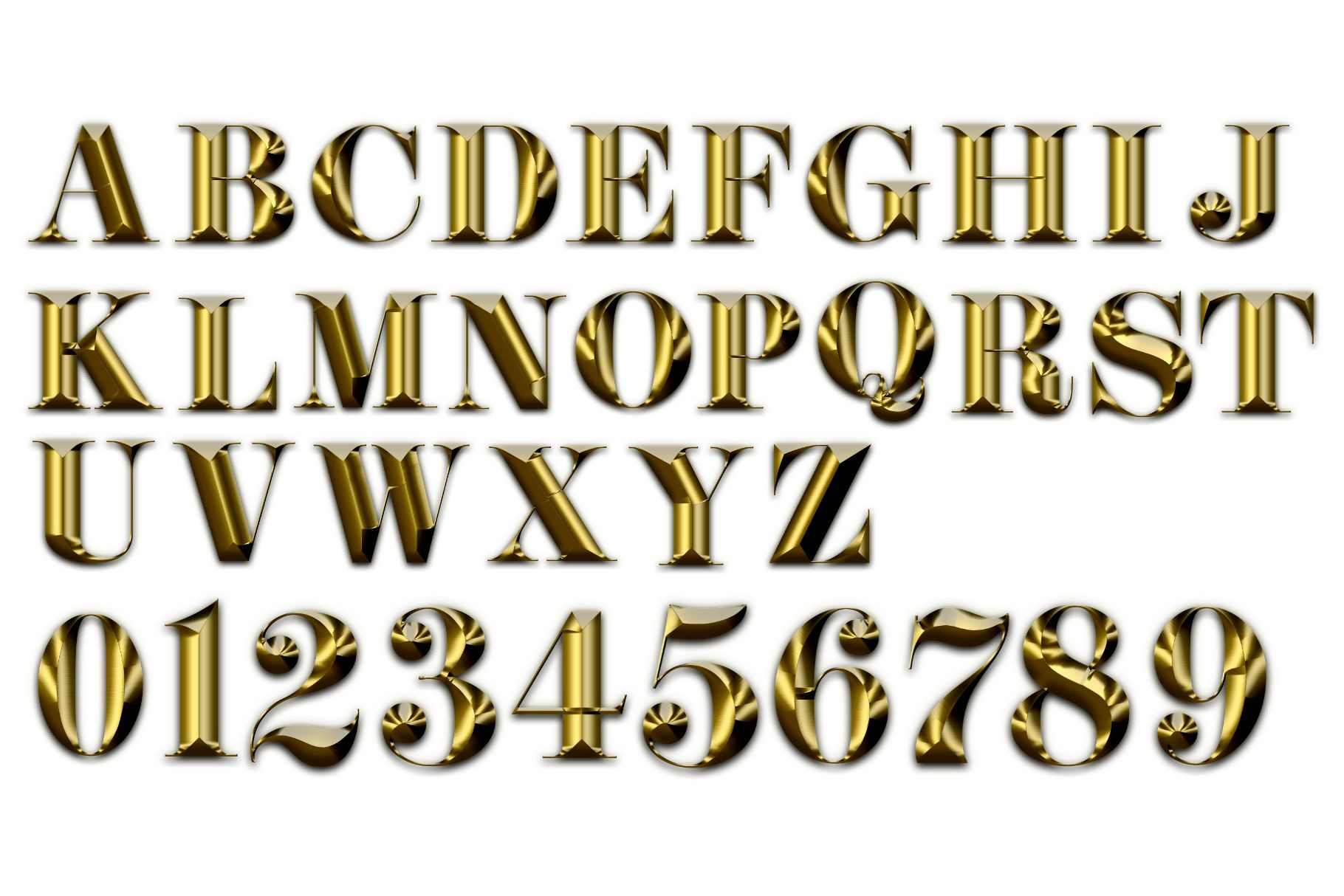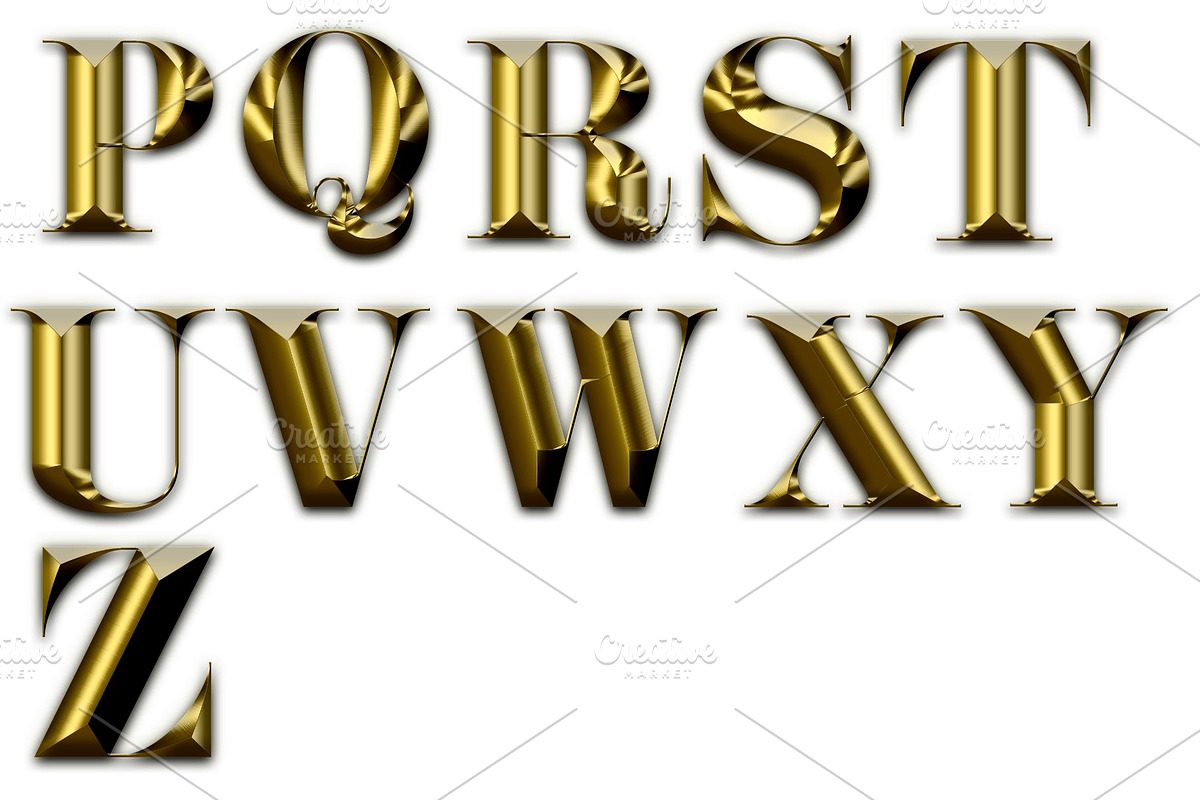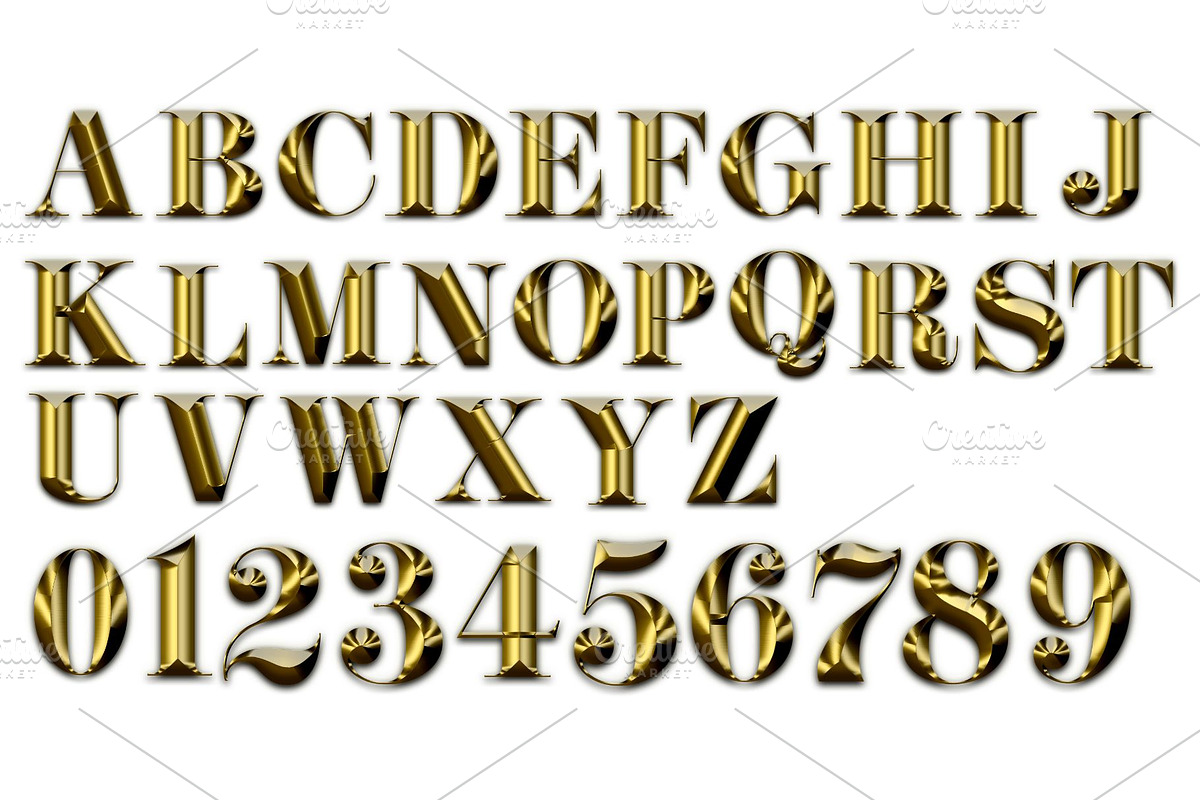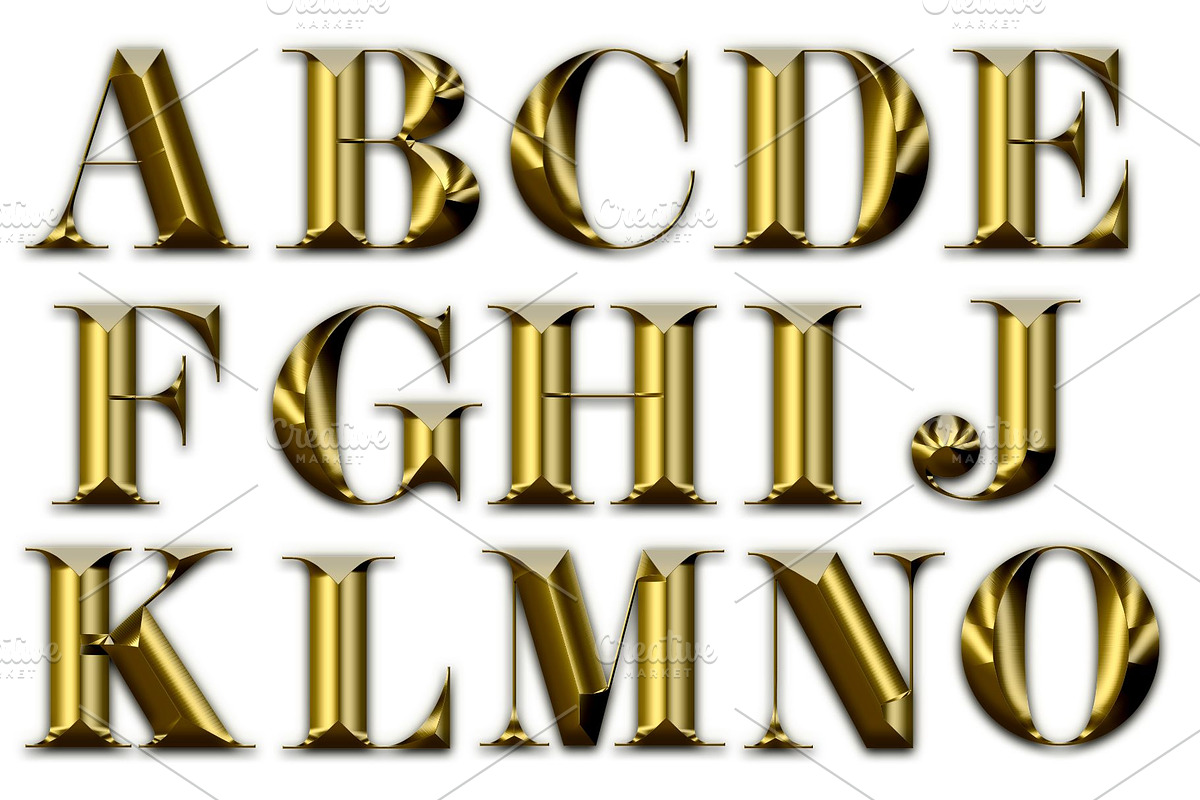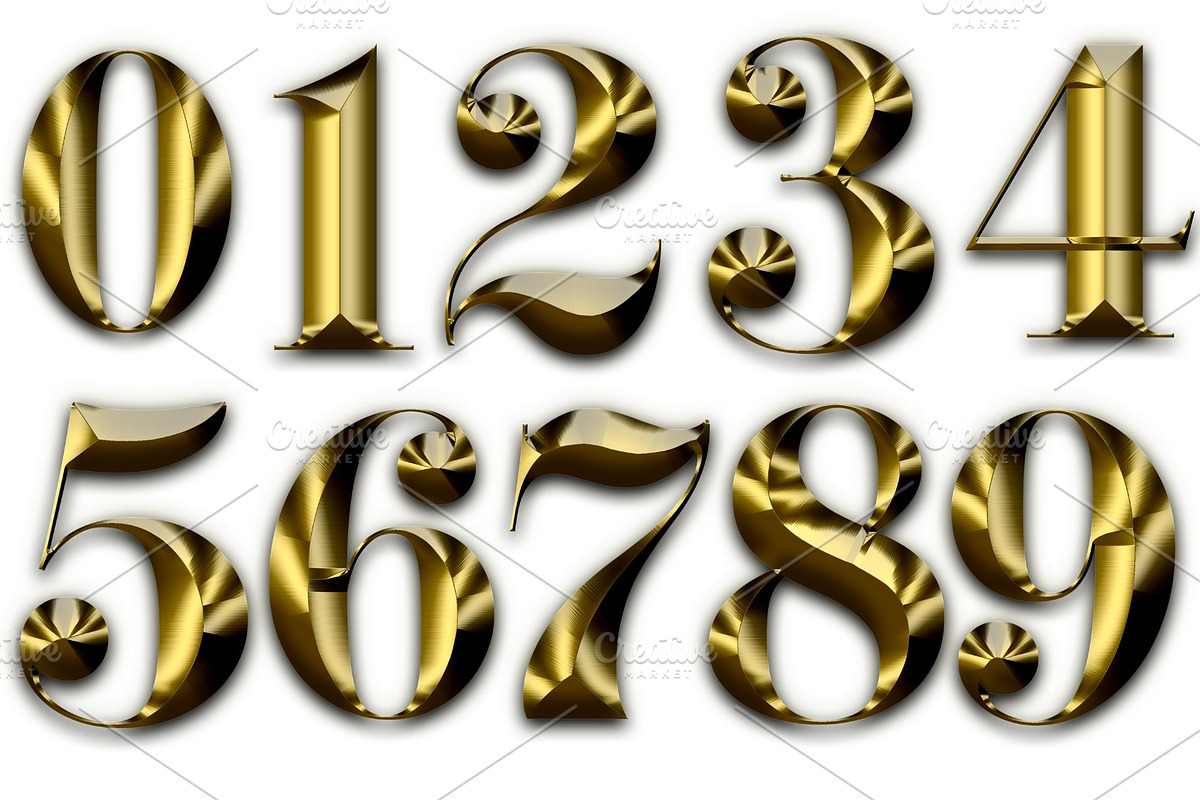
Golden Serif 3D Font Clipart
Golden Serif 3D Font Clipart - Shiny Gold Metallic Alphabet, Elegant Letters & Numbers, Transparent PNG, Luxury Text Effect, Classic Typography
Command attention with the opulent brilliance of this Golden Serif 3D Font Clipart bundle! This exquisite collection features a complete uppercase alphabet and numbers, all rendered with a stunning, highly reflective gold metallic finish and a classic serif typeface, giving them a rich three-dimensional presence. Each character gleams with the undeniable allure of real gold, offering an instant sense of luxury, prestige, and timeless elegance. Perfect for high-end branding, formal invitations, awards, or any project that demands sophisticated, grand, and memorable typography. The high-resolution PNG format ensures crisp detail and easy integration into your creative work, making your text shine with unparalleled golden splendor.
- Complete Uppercase Alphabet (A-Z): All 26 letters with a luxurious 3D gold metallic effect.
- Numbers (0-9): Matching shiny, elegant digits.
Infuse your text with unmatched elegance and a golden touch using this exquisite Golden Serif 3D Font Clipart bundle!